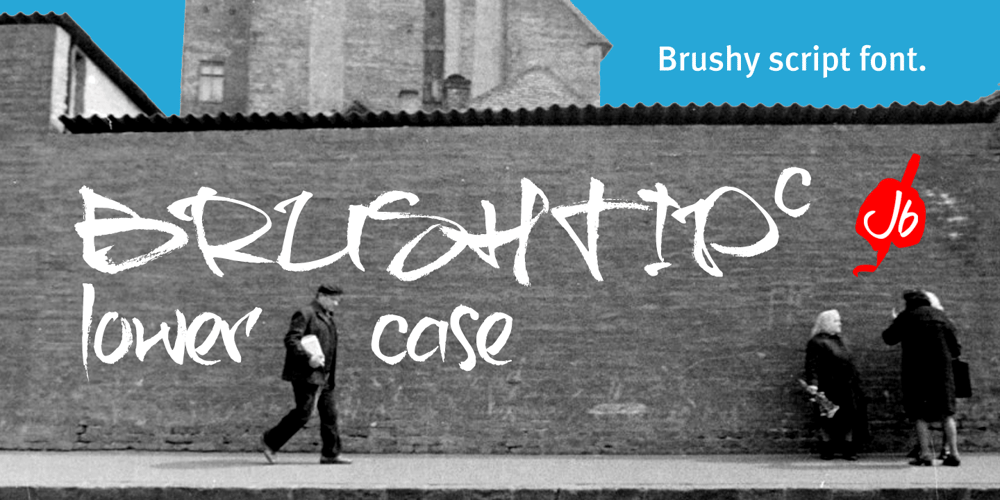
Brushtip C Font Family was designed by Jeroen “Joebob” van der Ham and published by JOEBOB graphics. Brushtip C contains 1 styles and family package options. Slightly erratic straight up brush tip handwriting script that was written with an ‘intoxicated’ hand, with a lot of very unique characters as a result. The overall font looks wild yet very readable. It includes all eastern European, Baltic, Scandinavian and Turkish characters.